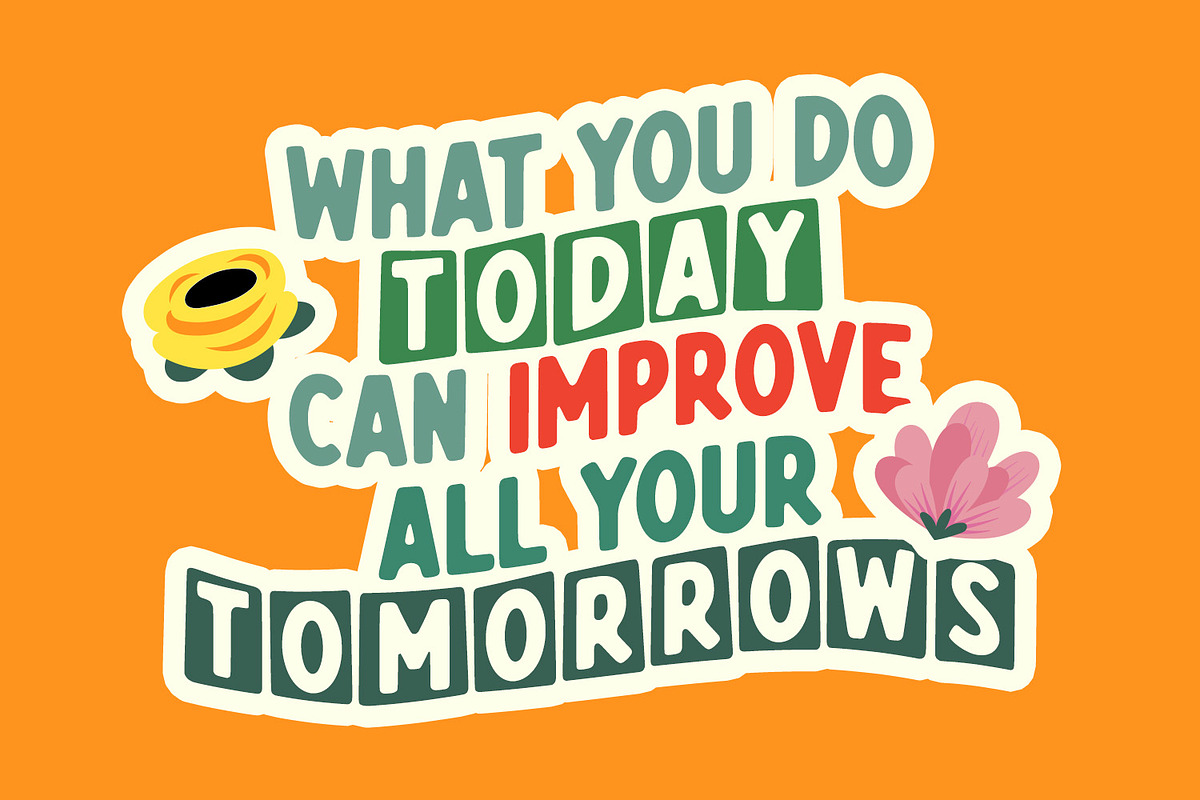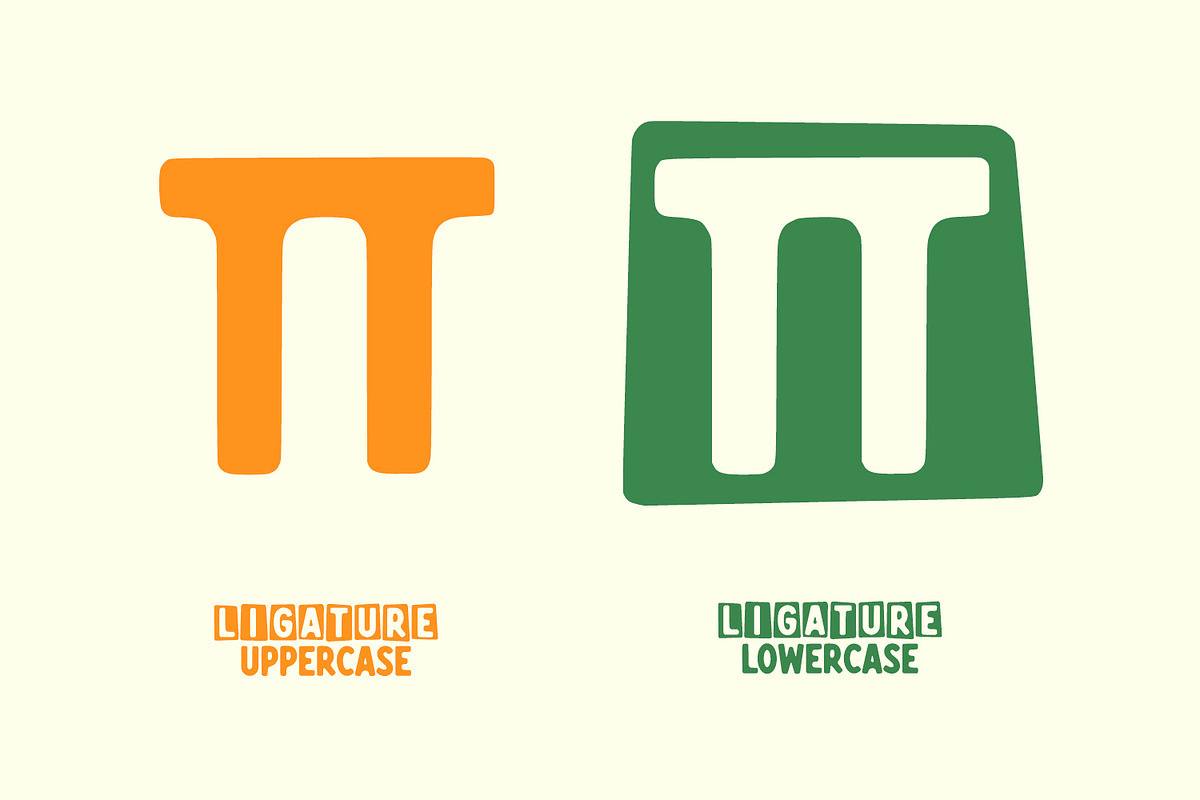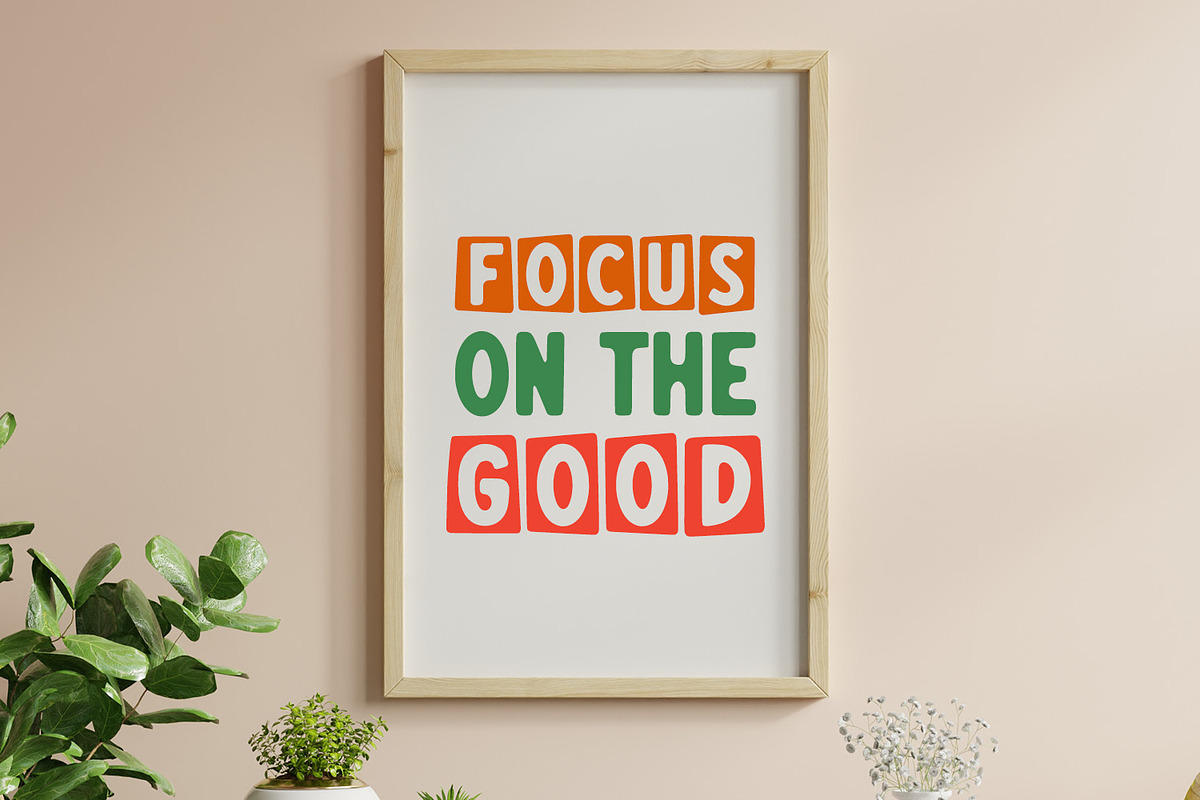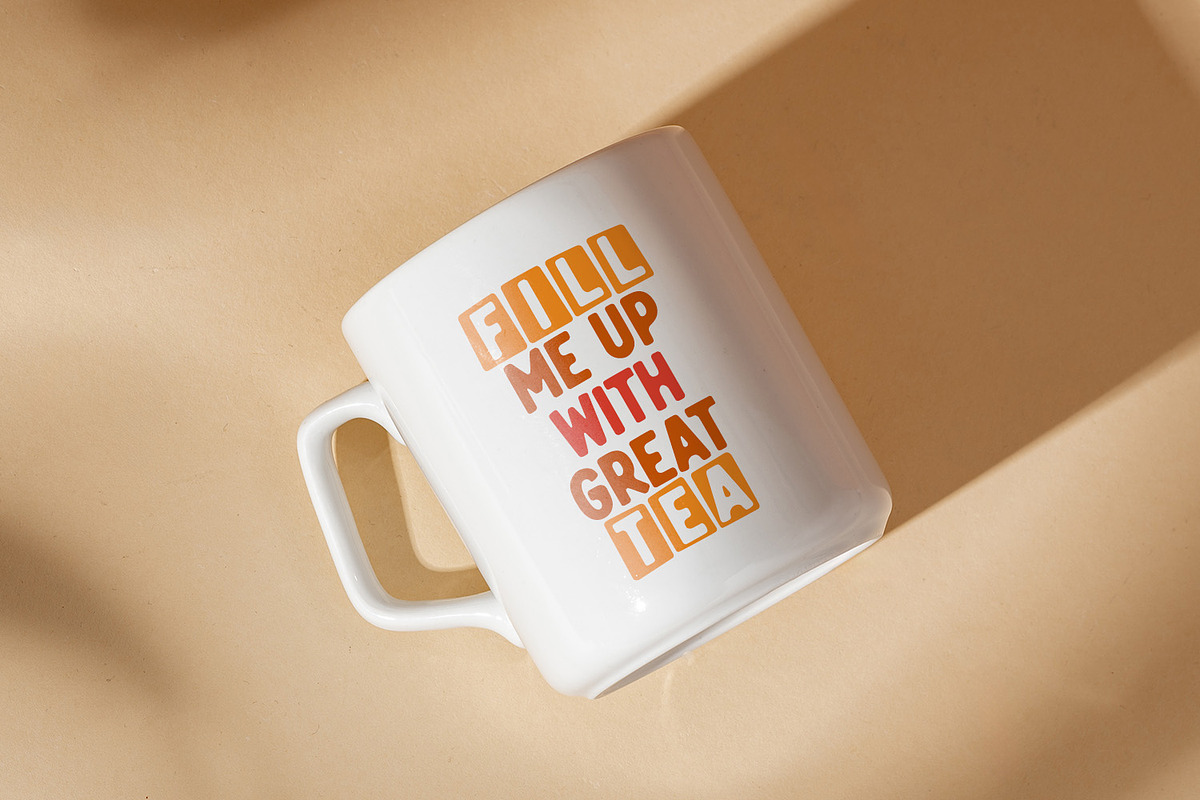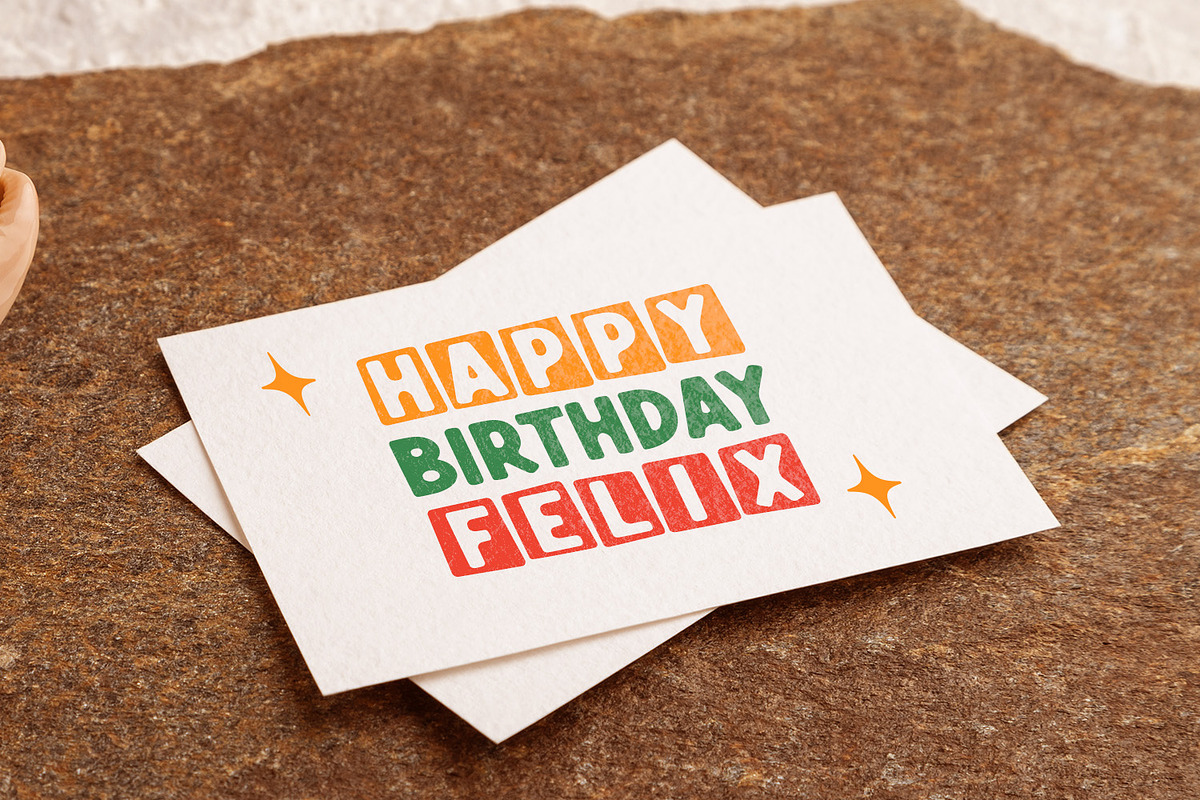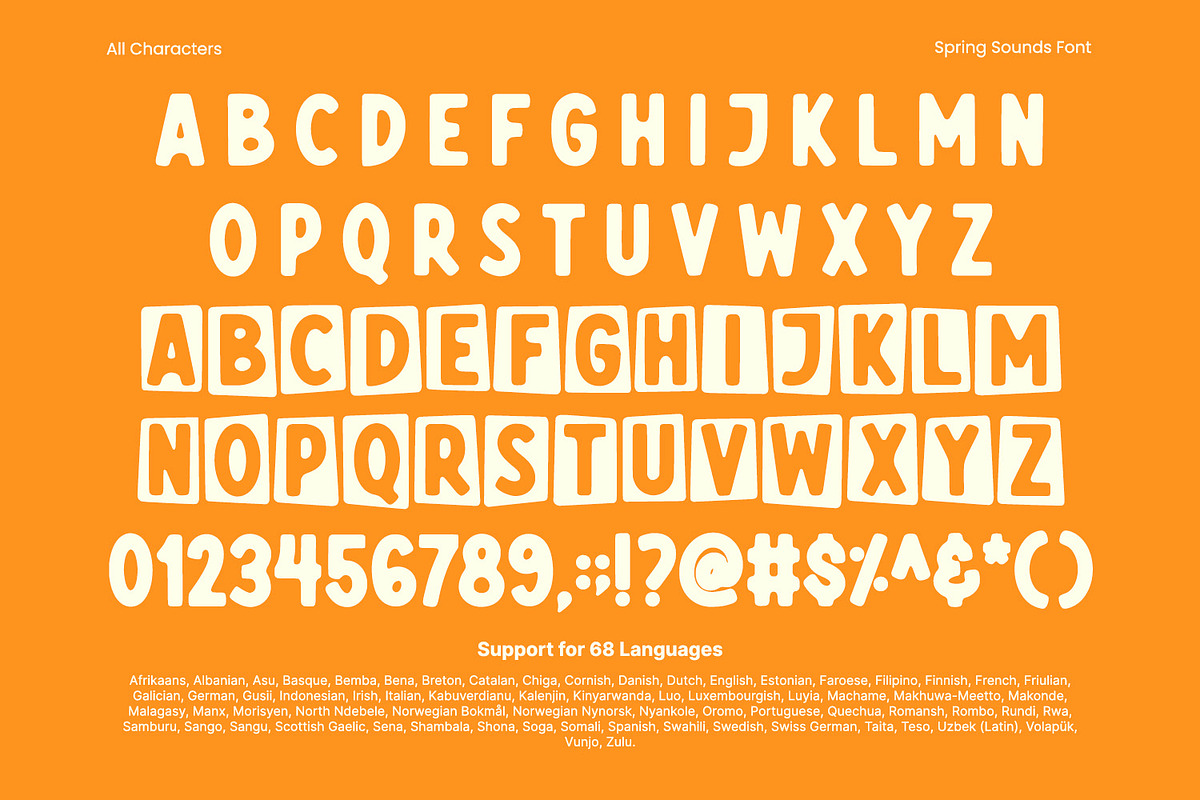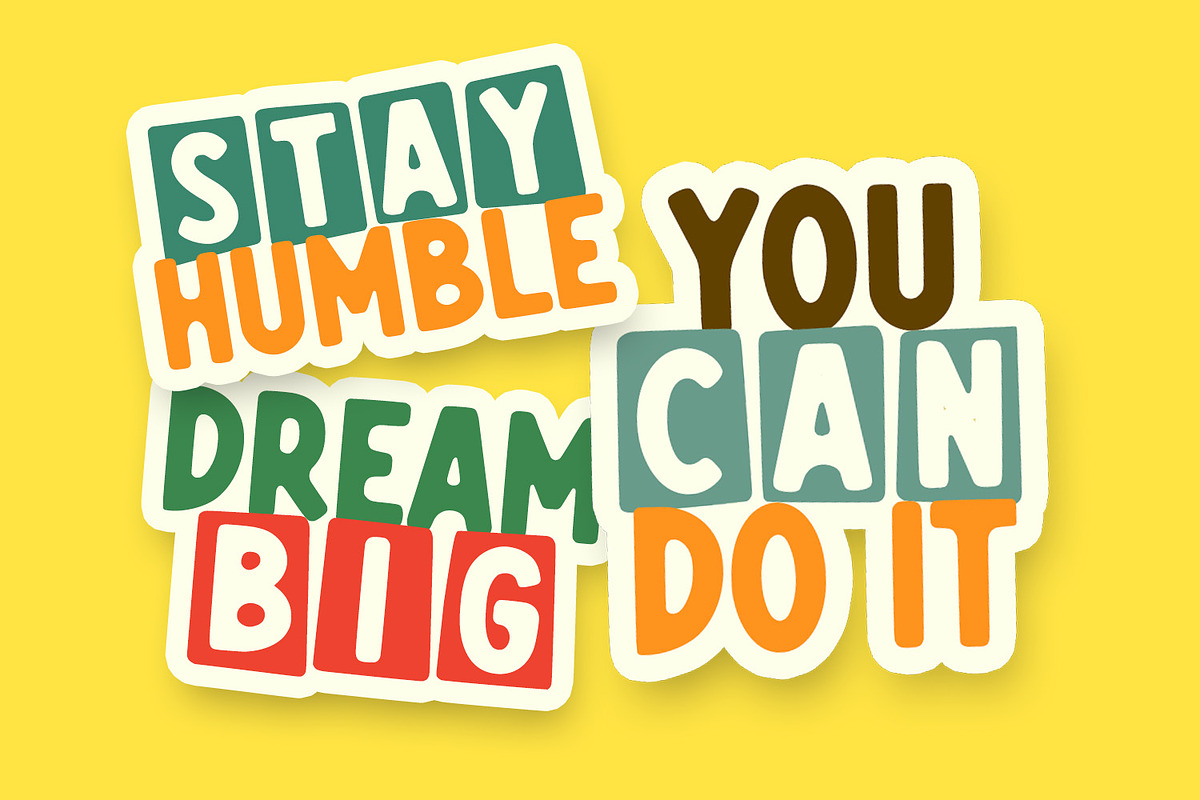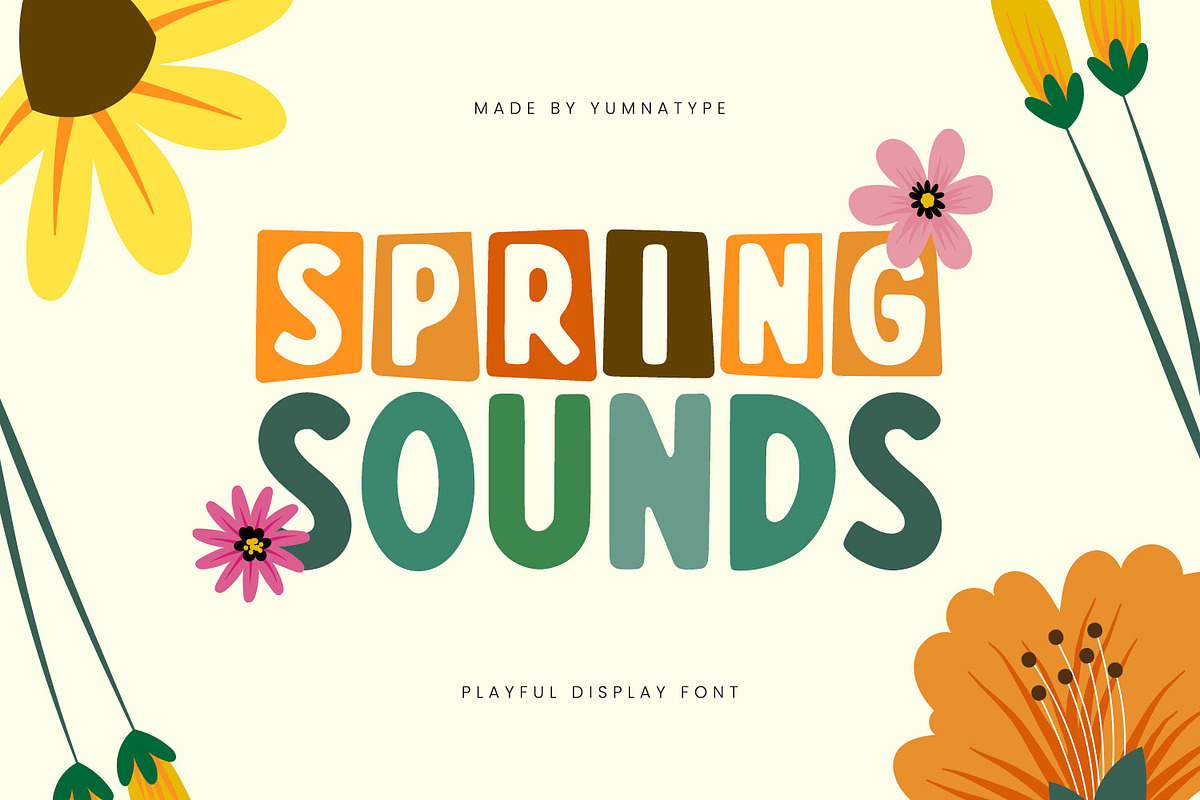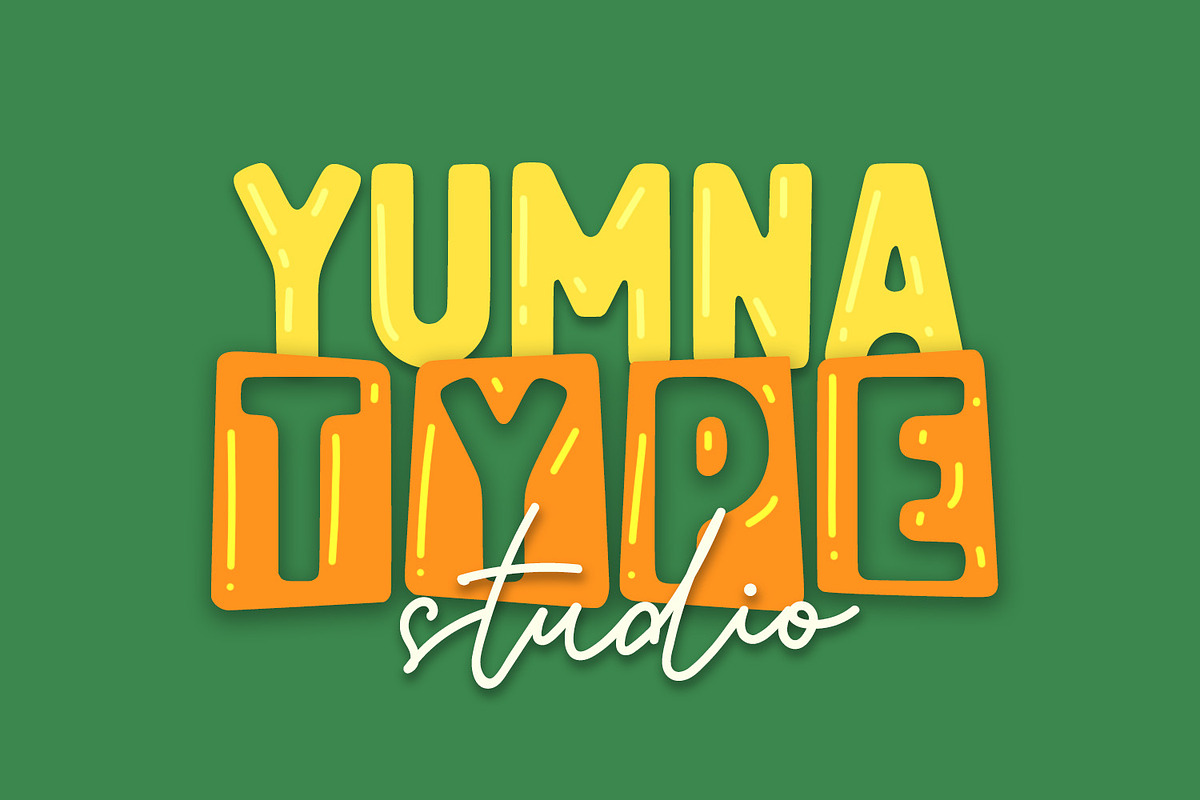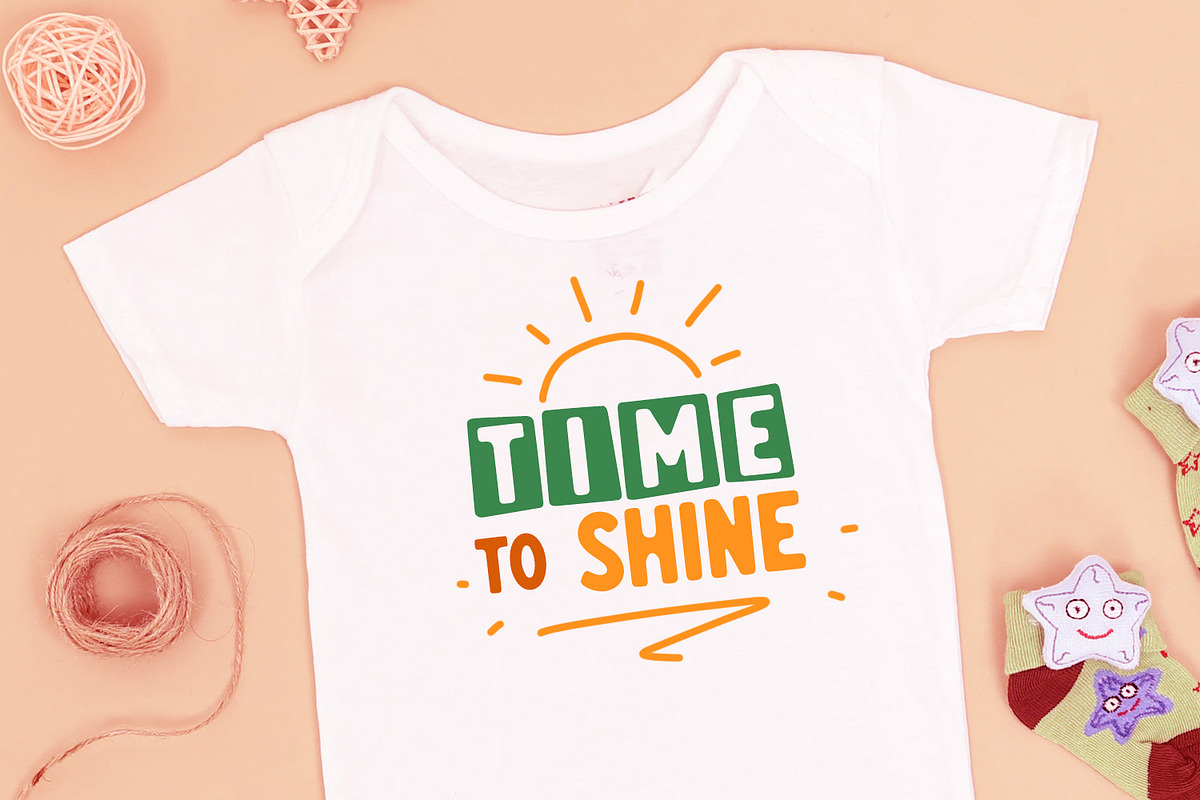
Spring Sounds
Spring Sounds is a playful display font that brings a burst of energy to any design. Made in a unique mix of uppercase and lowercase letters all presented in an all-caps style, this font offers a varied design that keeps things interesting and lively. The bold font weight ensures a strong presence, while the low contrast maintains a smooth look. Rounded shapes add a friendly and approachable feel. In addition, enjoy the features here.
Spring Sounds fits in headlines, logos, posters, flyers, branding materials, print media, editorial layouts, and many more designs. Find out more ways to use this font by taking a look at the font preview.